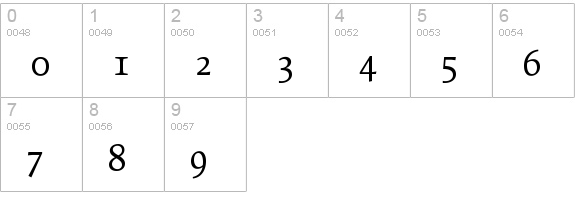
Proforma-Medium is a balanced, medium-weight variant in the Proforma typeface family \xE2\x80\x94 well suited to sub-headlines, navigation, and balanced editorial work.
Proforma-Medium is a versatile and modern font that strikes the perfect balance between professionalism and creativity. Its clean lines and balanced proportions make it suitable for a wide range of design projects, from logos to websites to print materials. The medium weight of the font gives it a strong presence without being overpowering, making it a great choice for headlines and body text alike. What sets Proforma-Medium apart is that it is not only a high-quality font but also freely available for download at FontsMarket.com. This means that you can easily access and use this elegant typeface in your projects without any cost. Whether you're a seasoned designer looking for a reliable font or a beginner experimenting with typography, Proforma-Medium is a fantastic choice that won't break the bank. Download it today and elevate your designs with this beautiful and versatile font.